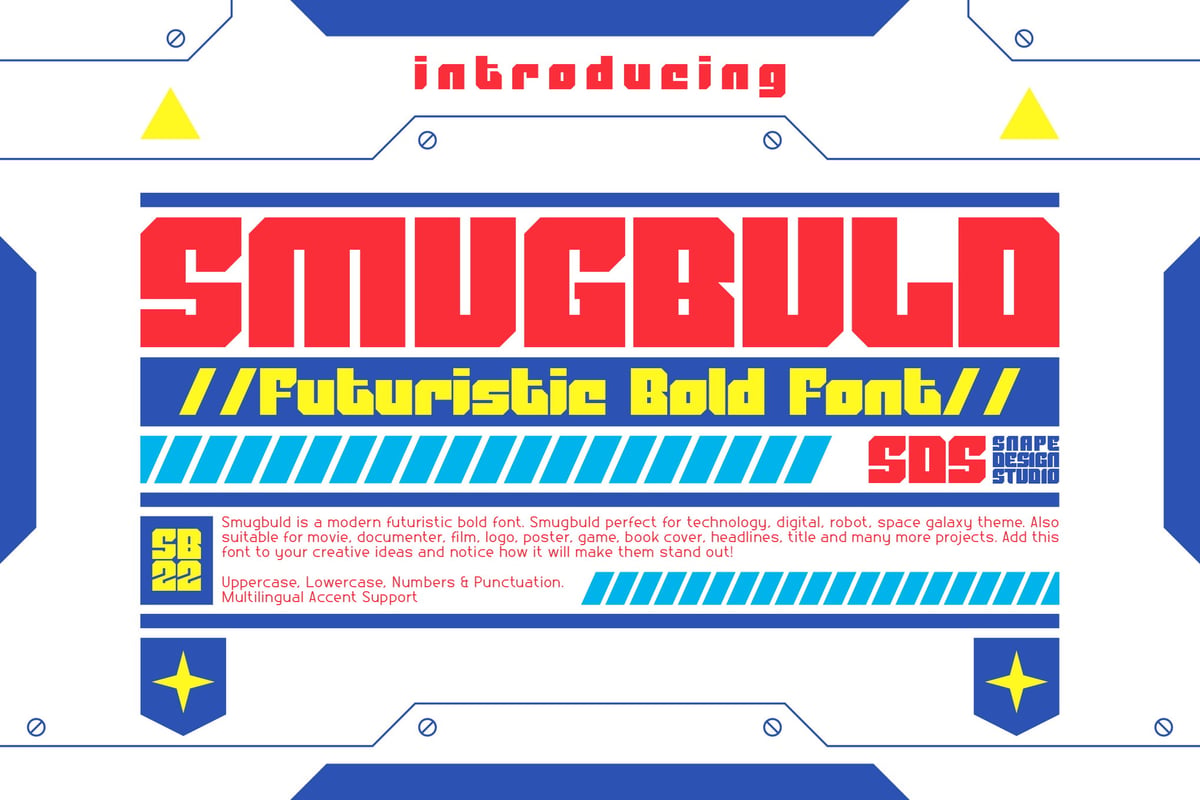
Smugbuld – Futuristic Bold Font
Transform your tech and sci-fi projects with Smugbuld, a commanding futuristic bold font. This modern typeface delivers powerful impact for technology themes, robotics, digital interfaces, and space galaxy concepts. Whether you're designing movie titles, documentaries, film credits, logos, posters, game interfaces, book covers, or bold headlines, Smugbuld brings that cutting-edge aesthetic your projects demand. Perfect for creators seeking a distinctive futuristic look that makes content stand o...